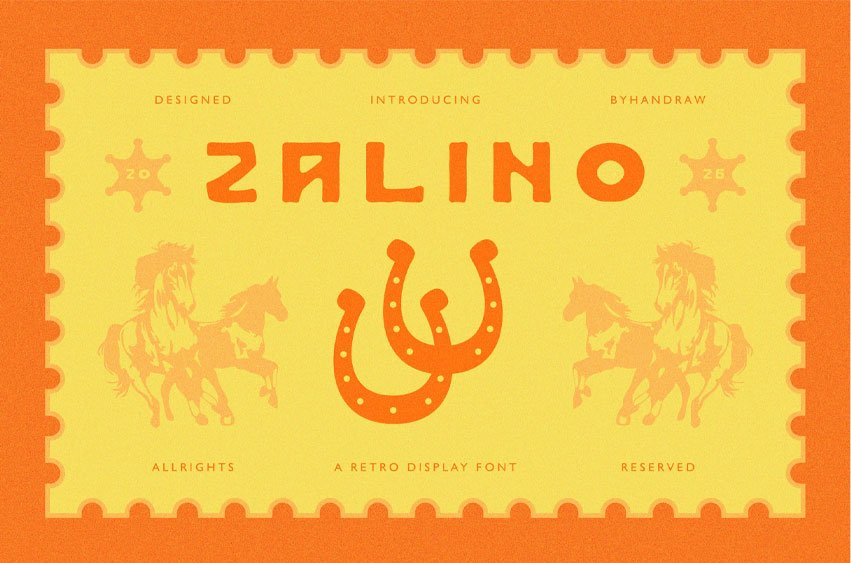
Zalino Font is a retro-inspired hand-drawn typeface that blends nostalgic character with modern versatility.
It features organic strokes, slightly irregular lines, and a warm handcrafted feel that mimics traditional brush lettering. Each letter carries a distinct personality, giving designs a lively and human touch.